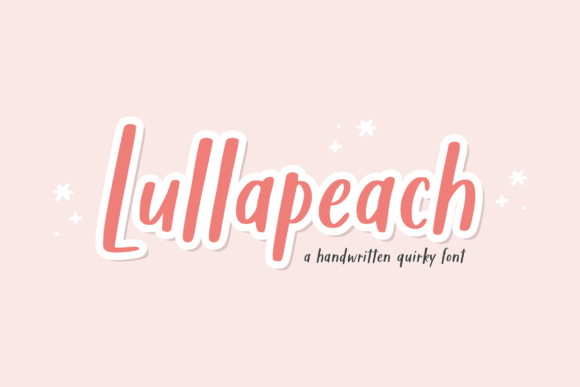
Introducing Lullapeach, the enchanting script font that captures the essence of handwritten letters, evoking a sense of nostalgia and authenticity. Step into a world where words dance gracefully across your designs, leaving a trail of elegance and charm. Let Lullapeach weave its magic, transforming your projects into captivating expressions of art.
Embark on a creative journey with Lullapeach, the perfect companion for product packaging, branding projects, and social media posts. Its whimsical nature adds a touch of playfulness to your designs, making them stand out from the crowd. Create eye-catching magazine layouts that draw readers in with their unique charm.
Lullapeach is more than just a font; it's an invitation to express yourself creatively. Whether you're designing wedding invitations, crafting heartfelt messages, or simply adding a personal touch to your projects, Lullapeach will elevate your words, making them resonate with emotion and meaning.
With Lullapeach by your side, you'll discover a world of endless possibilities. Its versatility extends from product packaging to branding projects, from social media posts to wedding invitations. Lullapeach adapts effortlessly to any design, bringing a touch of sophistication and charm wherever it goes. Its ability to blend seamlessly with diverse aesthetics makes it a true creative chameleon.
So, dive into the world of Lullapeach and let your creativity soar. Its enchanting aura will add a touch of magic to your designs, leaving a lasting impression on all who encounter them. Embrace the beauty of handwritten letters and embark on a journey of self-expression and artistic exploration.